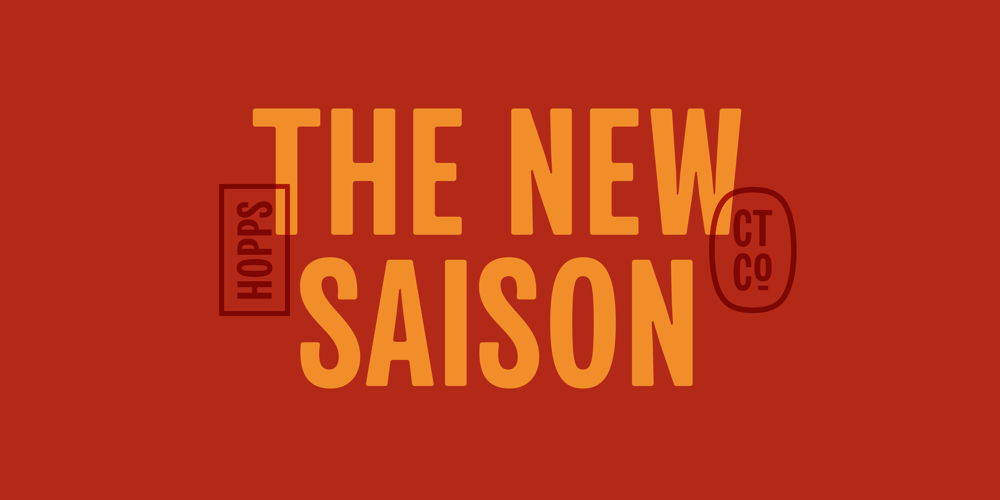
CTCO Hopps Font Family was designed by Adam Greasley and published by wearecolt. CTCO Hopps contains 4 styles and family package options. CTCo Hopps Condensed: A Bold and Versatile Display TypefaceCTCo Hopps Condensed is a striking sans-serif typeface crafted for impactful and attention-grabbing typography. Designed by Adam Greasley and published by Colt Type Co (WeAreColt) in 2023, this typeface draws inspiration from vintage beer labels, old newspaper headlines, and the handcrafted nature of woodcut type. Its condensed form allows for strong, space-efficient typography, making it an excellent choice for designers looking to create bold statements in a compact layout.Distinctive FeaturesCTCo Hopps Condensed embraces the rugged charm of vintage grotesques while maintaining a modern, highly legible aesthetic. Its tall, narrow letterforms give it a commanding presence, perfect for headline use, branding, and editorial design. The typeface’s clean yet slightly aged appearance makes it suitable for both retro and contemporary applications, offering versatility across different design needs.One of its defining characteristics is its balance between sharp precision and organic warmth. While the standard version boasts crisp edges and confident strokes, the Soft variant introduces subtle rounding to create a more approachable, softer tone. These nuances allow designers to tailor the typeface’s impact to their specific project requirements.Styles and VariantsCTCo Hopps is available in four styles: Regular – A bold and structured sans-serif with sharp, clean edges. Soft – Retains the same form but features softened edges for a more subtle, worn-in aesthetic. Italic – A dynamic, slanted variant that adds movement and emphasis. Soft Italic – A combination of the rounded Soft variant with the angled energy of the Italic style. Ideal ApplicationsThanks to its condensed structure and vintage inspiration, CTCo Hopps is well-suited for a variety of uses, including: Headline Typography – Perfect for magazine covers, posters, and advertising where bold messaging is key. Branding & Logo Design – Its distinctive yet versatile aesthetic makes it an excellent choice for brands seeking a strong, characterful identity. Packaging & Labeling – Especially suited for craft beer labels, artisanal products, and nostalgic branding. Editorial & Print Design – Works well in newspapers, zines, and books where space efficiency and impact are essential. Merchandise & Apparel – Ideal for t-shirt graphics, signage, and other printed goods. With its mix of vintage influences and contemporary refinement, CTCo Hopps Condensed is a valuable asset for designers seeking a bold, space-conscious typeface with personality. Whether used in sleek branding projects or nostalgic print designs, it delivers a confident, timeless aesthetic that resonates across multiple mediums.